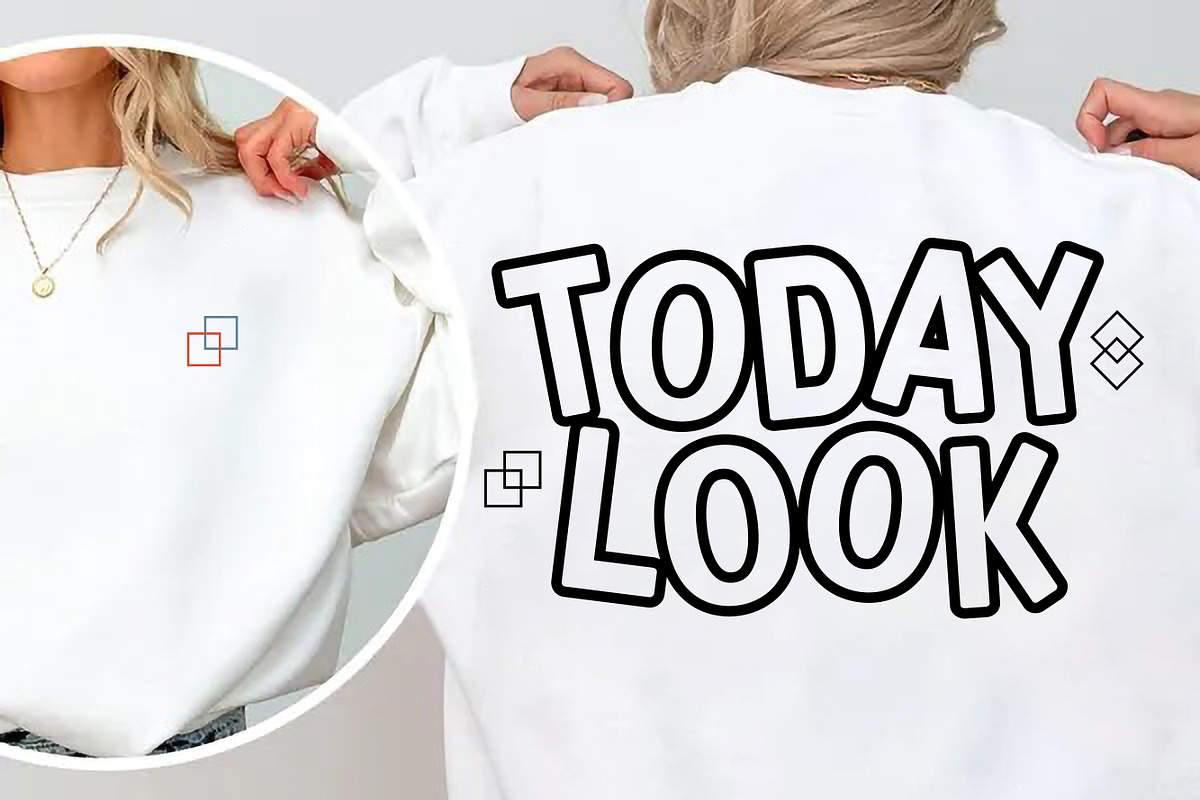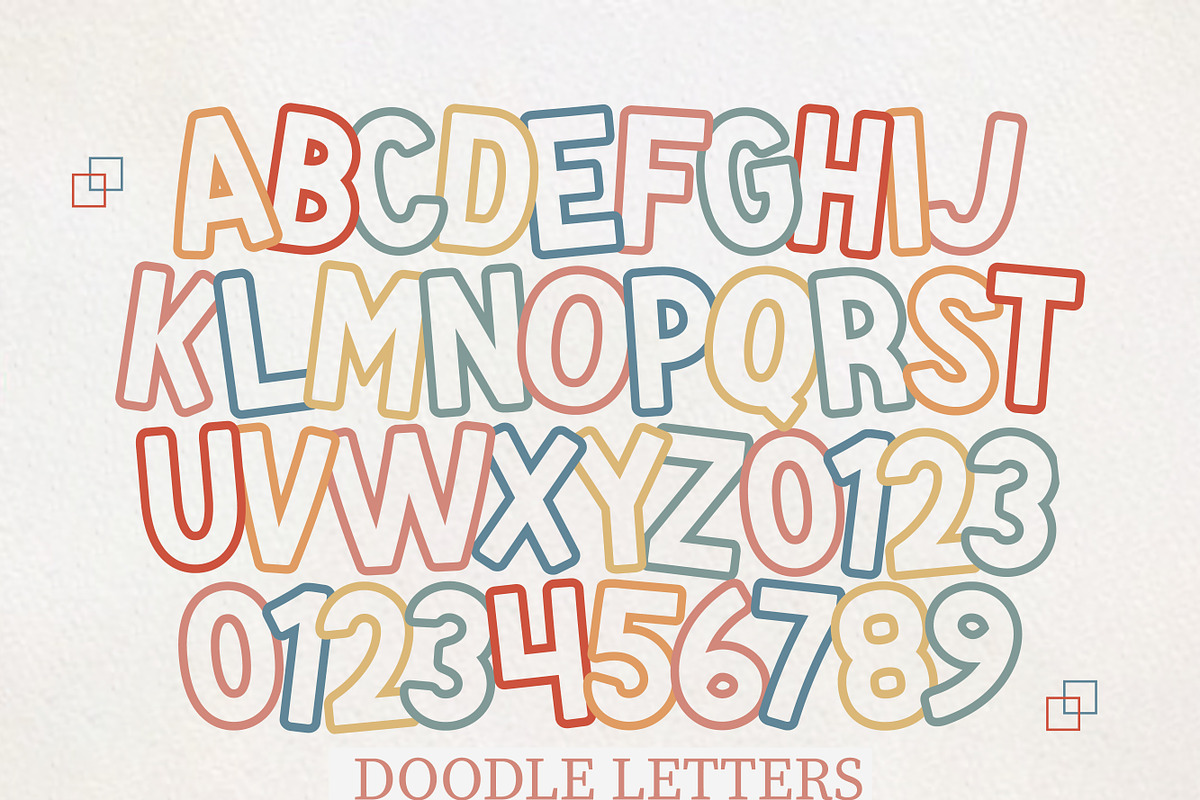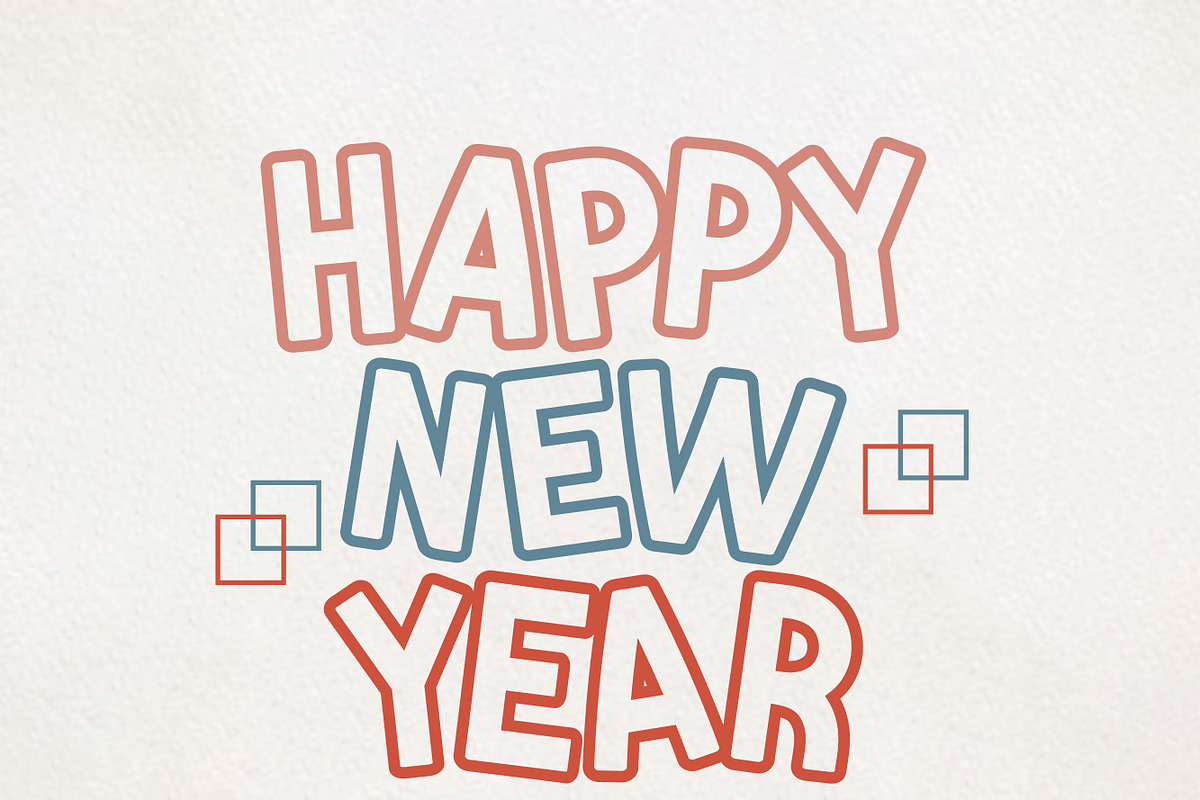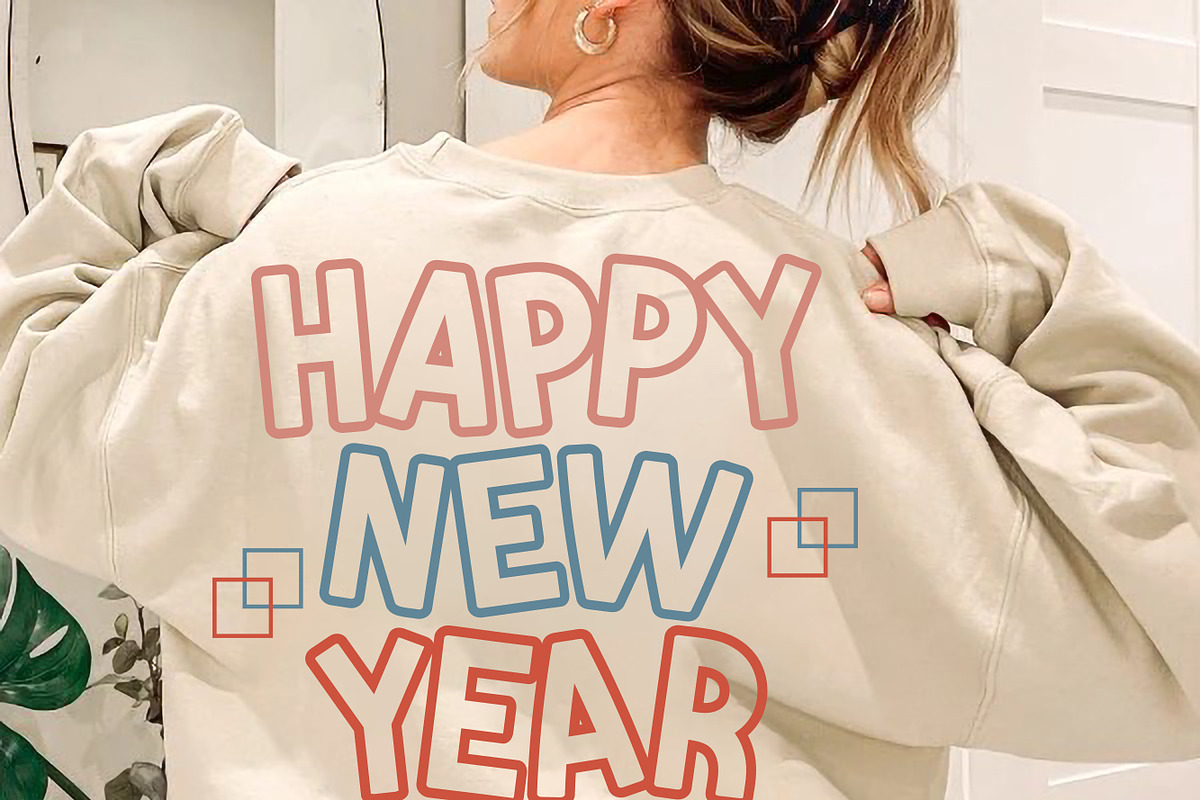
Doodle letters - Cute Alphabet
Doodle Letters is a cool lettered and display font. Add it confidently to your favorite creations with playful details that highlight the magic of the season, T-shirts, branding, custom DIY craft projects, quotes featuring elements and more.